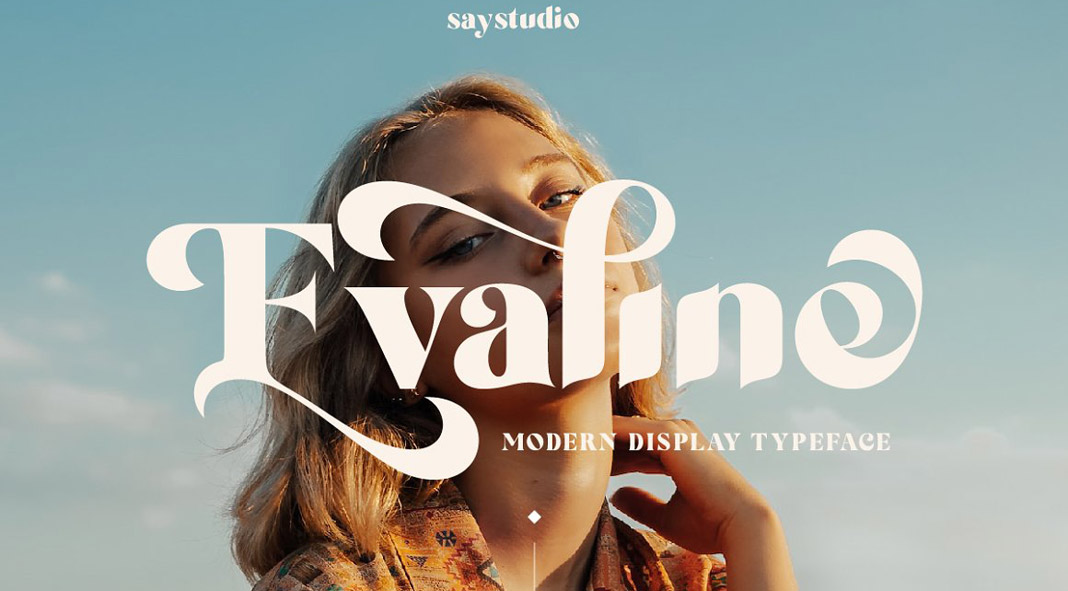
Download this elegant serif font that combines influences from vintage lettering with modern typography.
Created by Say Studio, Evaline is a display serif font that comes with several alternates for lowercase and uppercase letters. Consisting of three styles (regular, italic, and outline), this elegant typeface lets you create eye-catching designs.
Evaline is a versatile font that works great in both large and small sizes. This font is suitable for a wide variety of projects such as headlines, logos, labels, branding projects, magazines, homeware designs, product packaging, mugs, quotes, and posters, just to name a few.